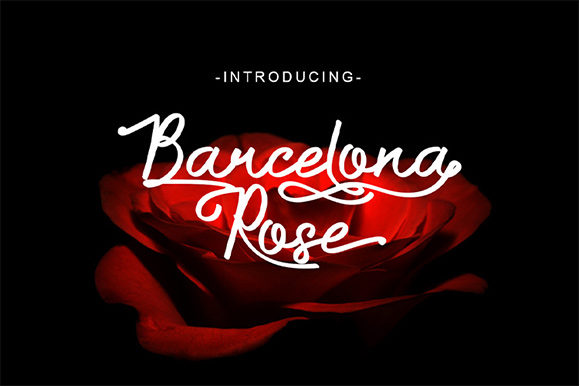
Journey into the realm of sophistication and timeless charm with the Barcelona Rose Font. This enchanting script font, meticulously crafted by the renowned Nico Muslib, seamlessly blends the allure of classic elegance with the authenticity of calligraphy. Immerse yourself in a world of creativity and expression, where words dance gracefully across the page, leaving a trail of elegance and beauty.
Barcelona Rose Font is more than just a font; it's an expression of artistry and sophistication. Its flowing lines, delicate curves, and perfect balance evoke a sense of timeless elegance, reminiscent of the golden age of calligraphy. Each letter has been carefully crafted to capture the essence of classic beauty, ensuring that your designs radiate an air of sophistication and refinement.
Whether you're a seasoned designer, a budding entrepreneur, or simply someone with a passion for aesthetics, Barcelona Rose Font is the perfect choice for adding a touch of elegance and charm to your creative projects. Its versatility knows no bounds, allowing you to effortlessly create captivating logos, stunning invitations, heartfelt greeting cards, and eye-catching social media posts that are guaranteed to leave a lasting impression.
Indulge in the beauty of Barcelona Rose Font and embark on a creative journey like no other. Let your imagination run wild as you explore the endless possibilities that await you with this exquisite script font. It's time to elevate your designs, captivate your audience, and leave an enduring legacy of beauty and sophistication.